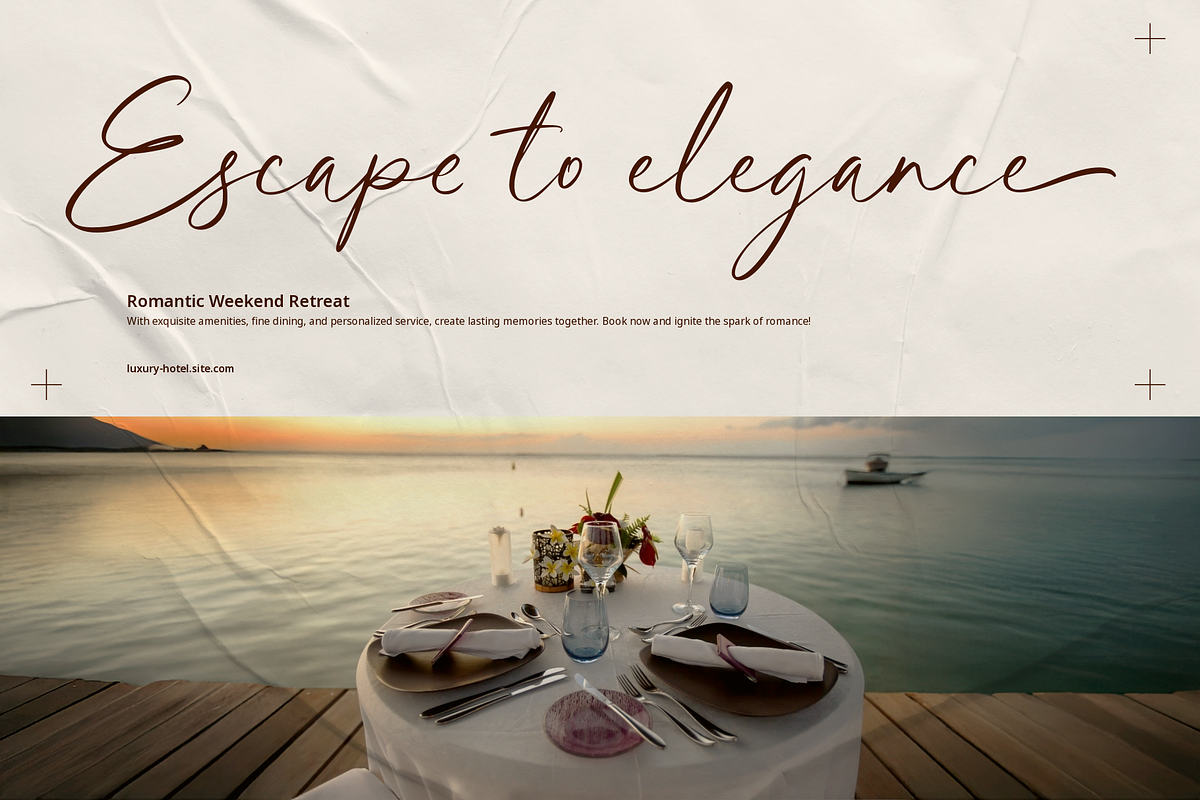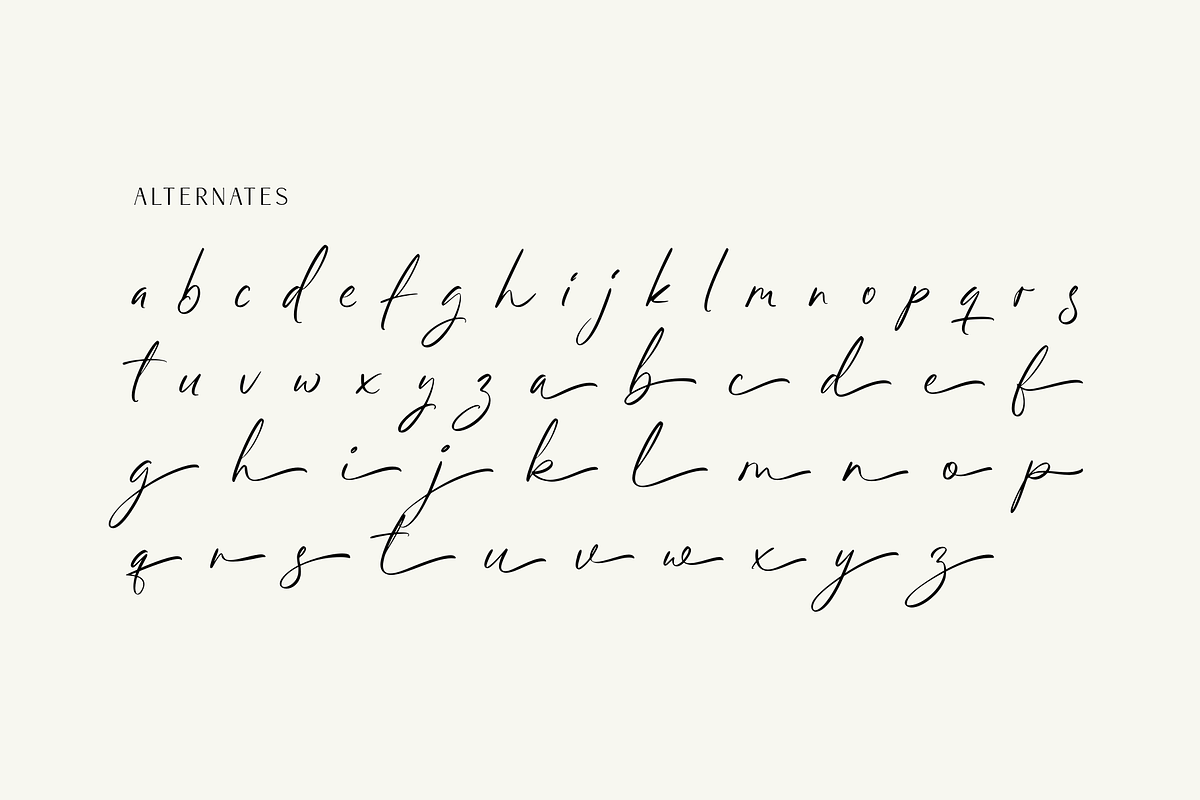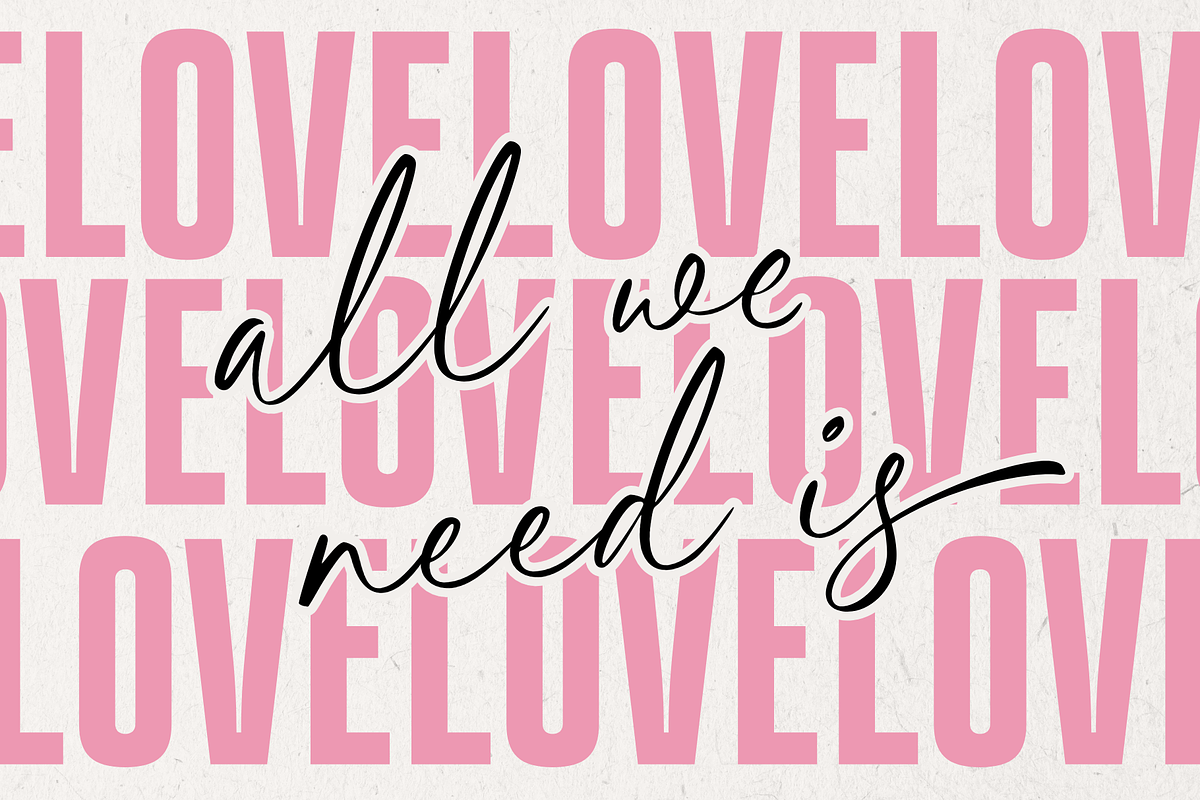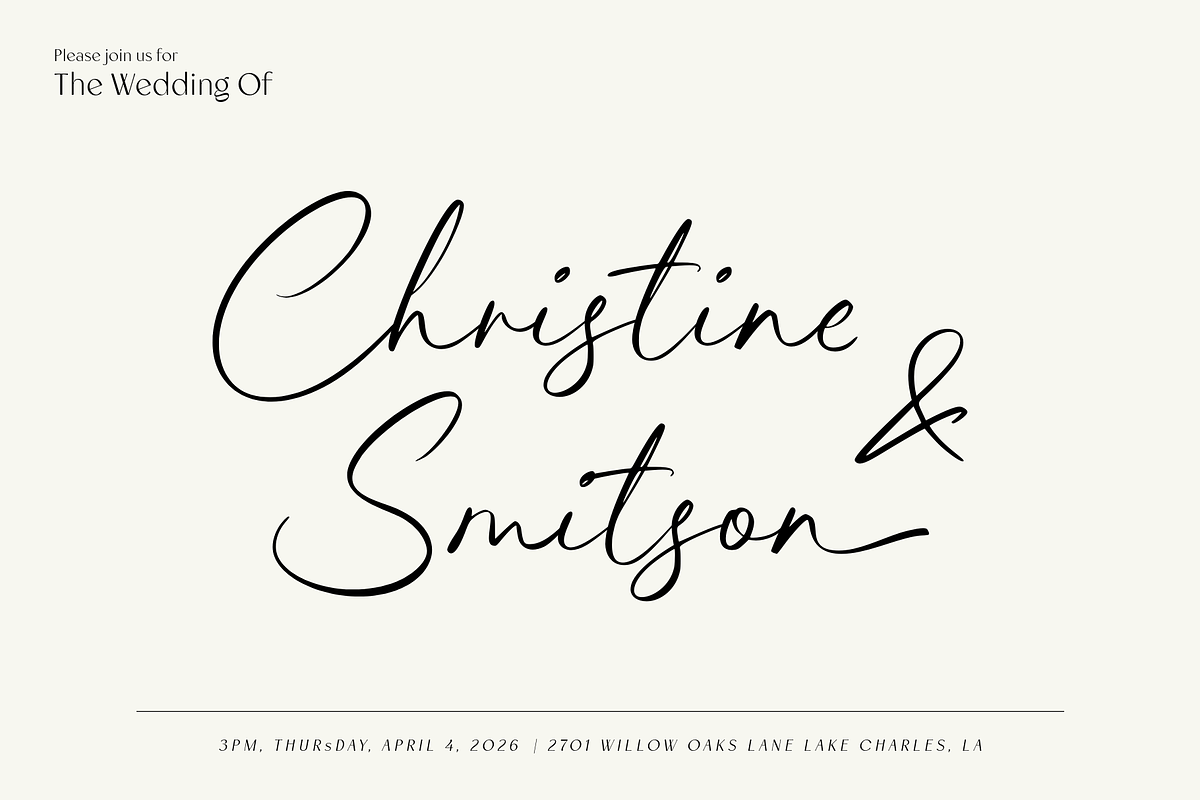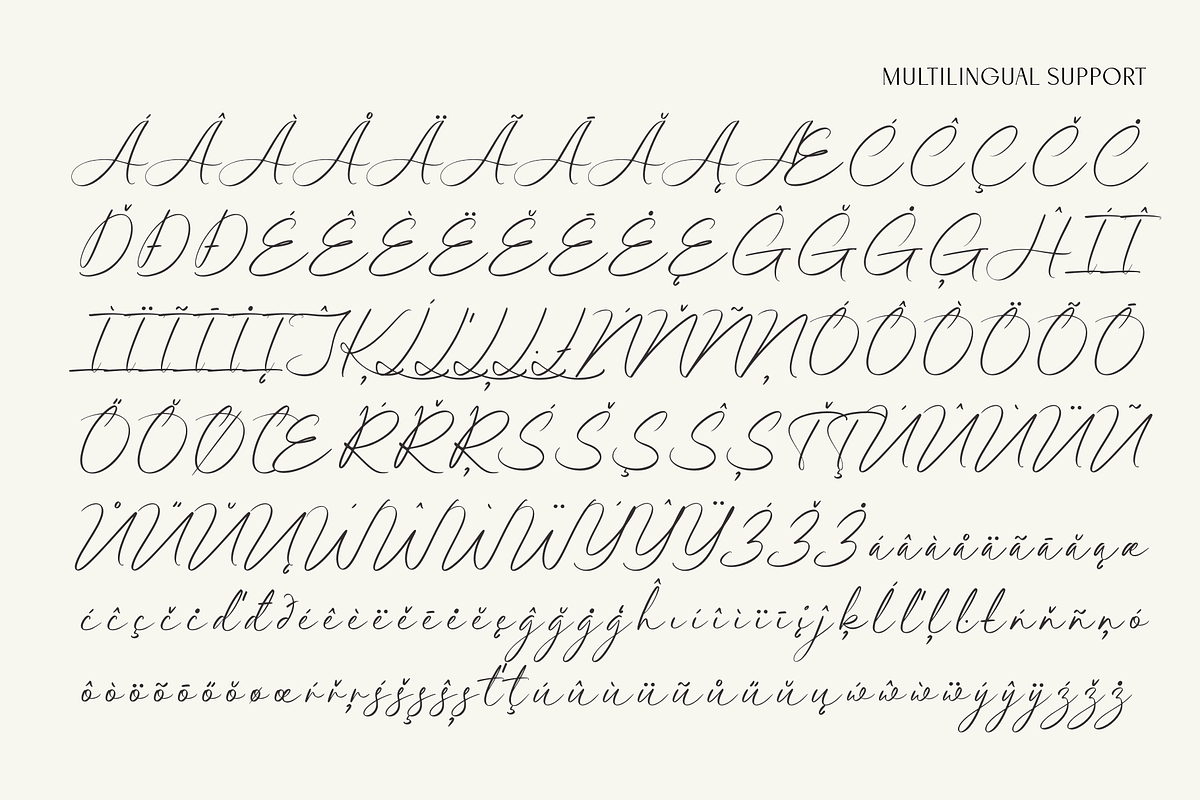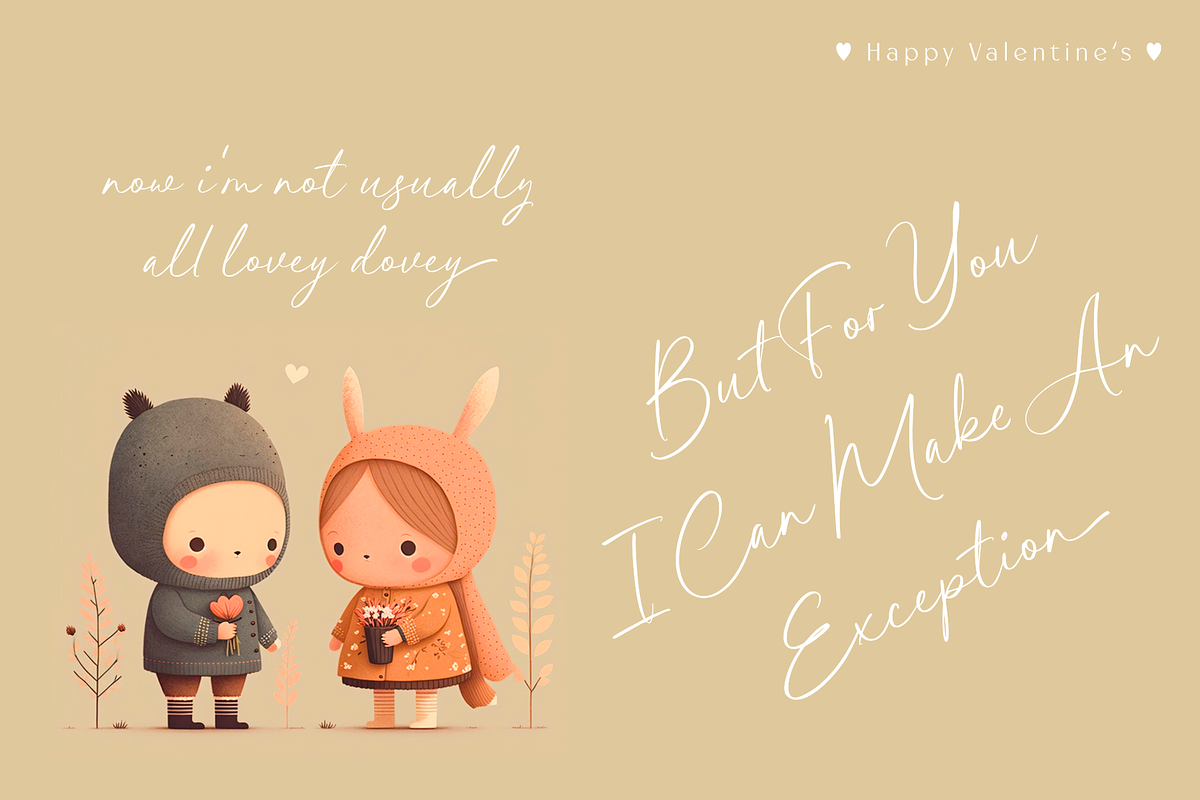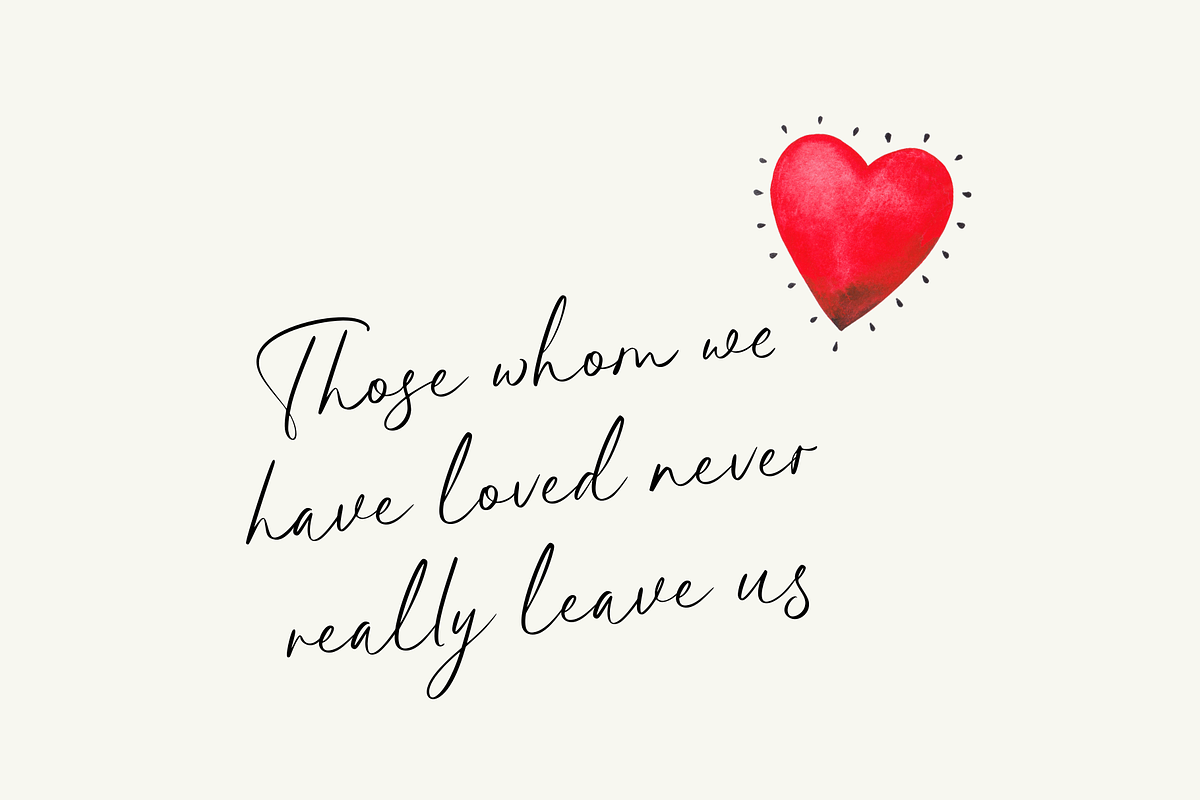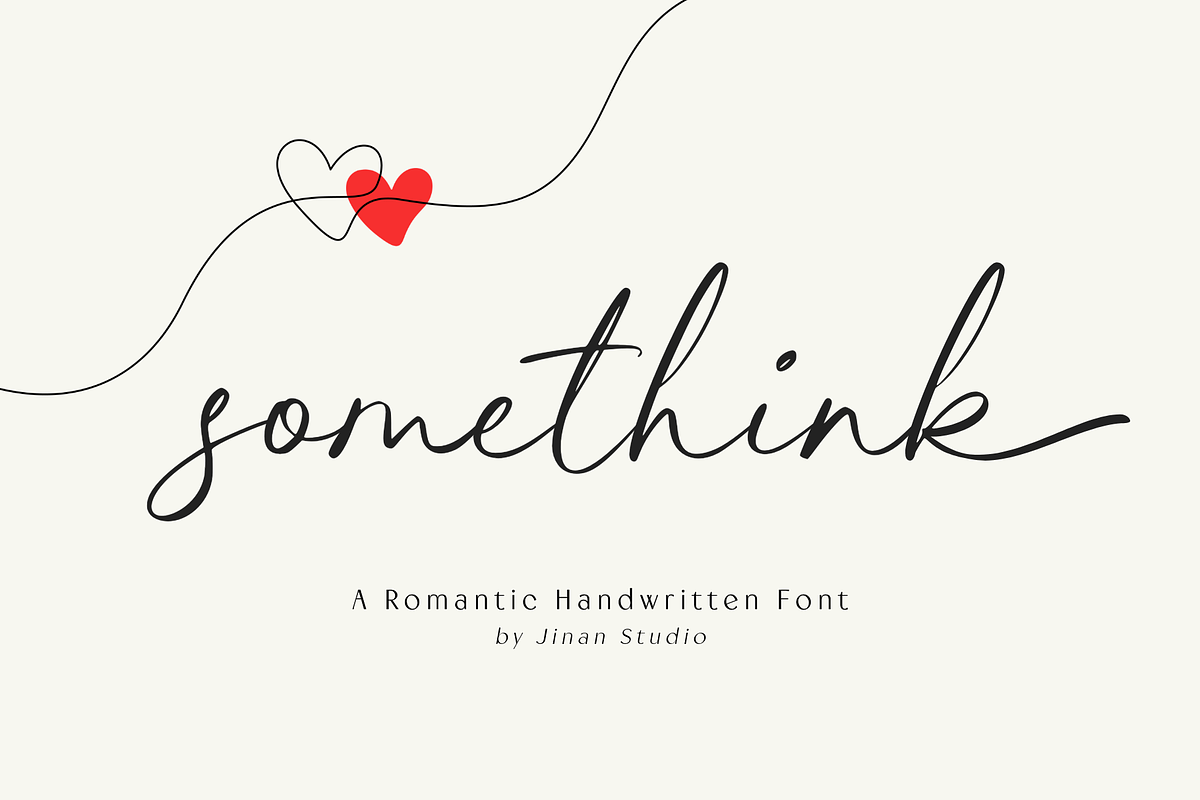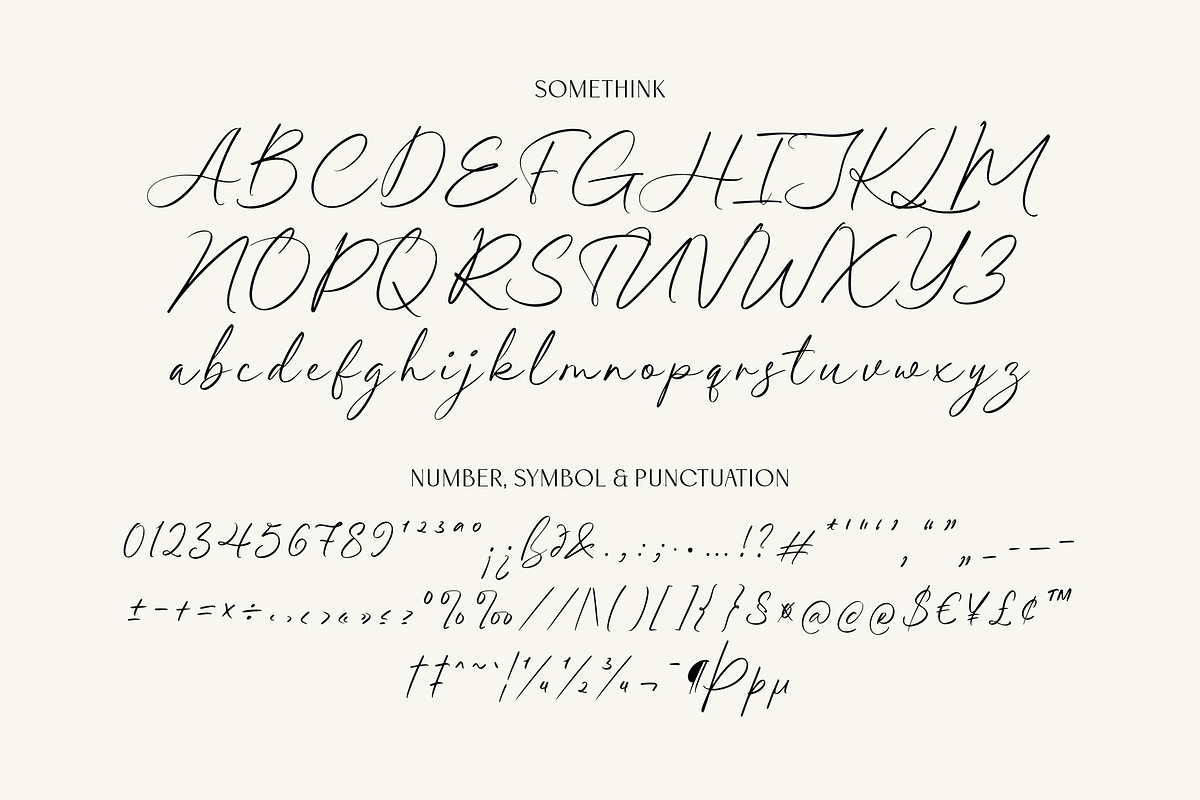
Somethink - A Handwritten Font
Somethink is a romantic handwritten font that blends gentle curves with an effortless, natural flow. Its elegant strokes create a warm, intimate feel—perfect for love-themed designs, wedding stationery, branding, quotes, social media posts, packaging, and any project that needs a soft, heartfelt touch.
Designed with smooth lines and graceful movement, Somethink brings a personal, handwritten charm while staying clean and modern. Whether you're crafting dreamy invitations, feminine logos, or expressive lettering art, this font adds a tender and sophisticated character to every layout.
Let Somethink add a whisper of romance to your creative world.
- A set of uppercase and lowercase glyphs
- Number, symbol, and punctuation